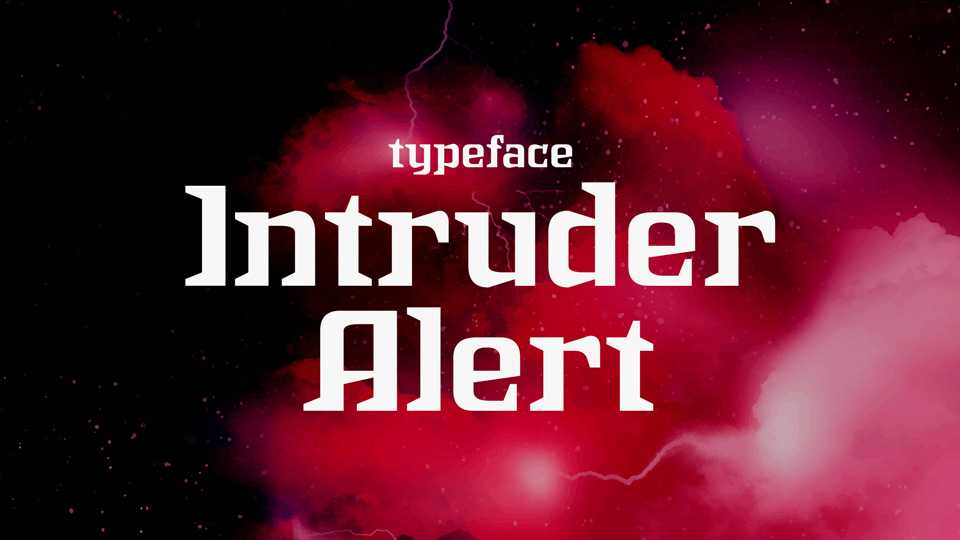
Download Intruder Alert font, a hard-nosed little typeface that will protect the borders at all costs. Intruder Alert font is suitable for logos, branding, headlines, posters, prints and other creative projects.
Designer: Darren Rigby